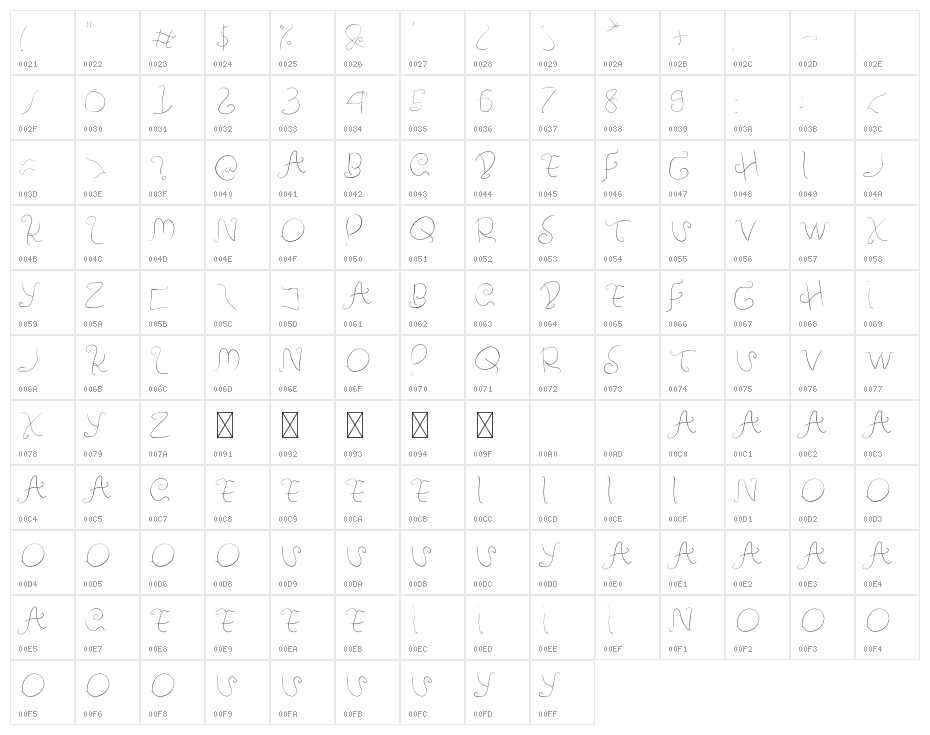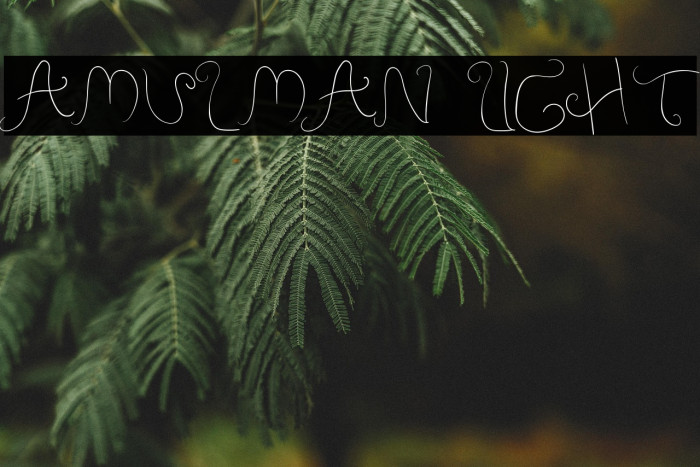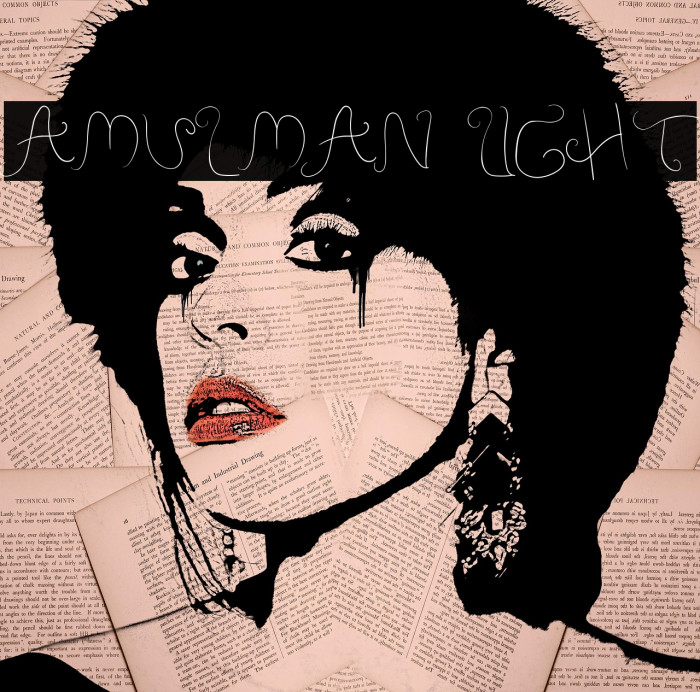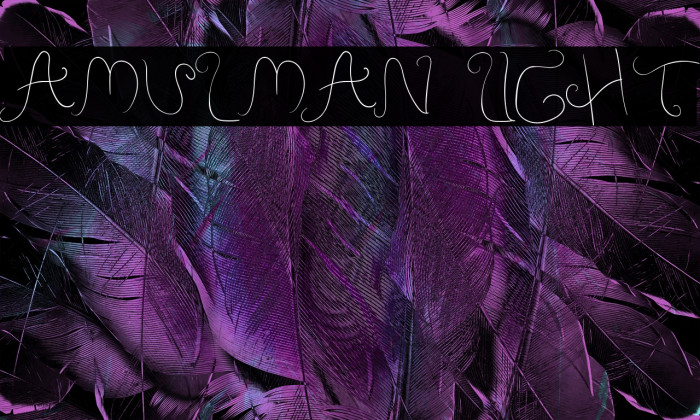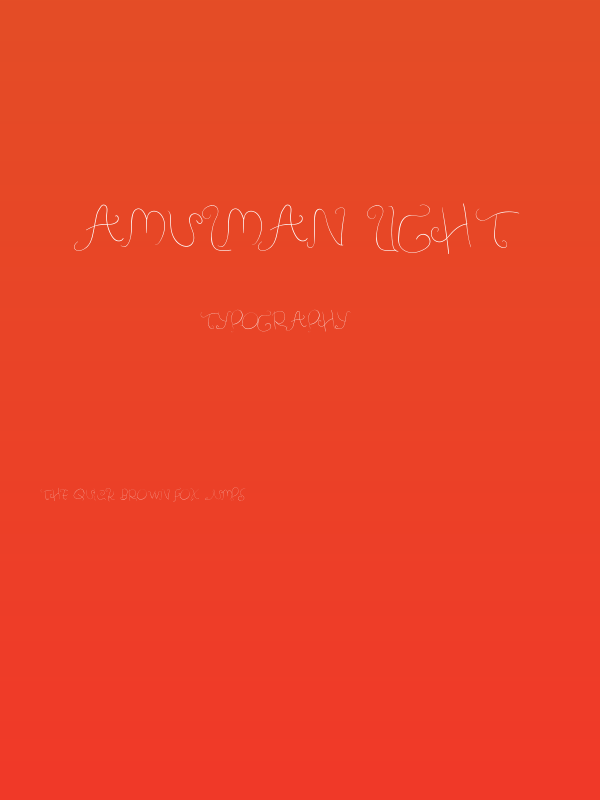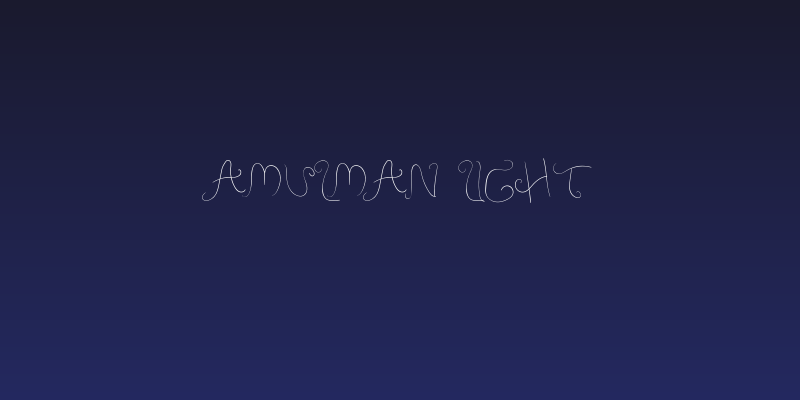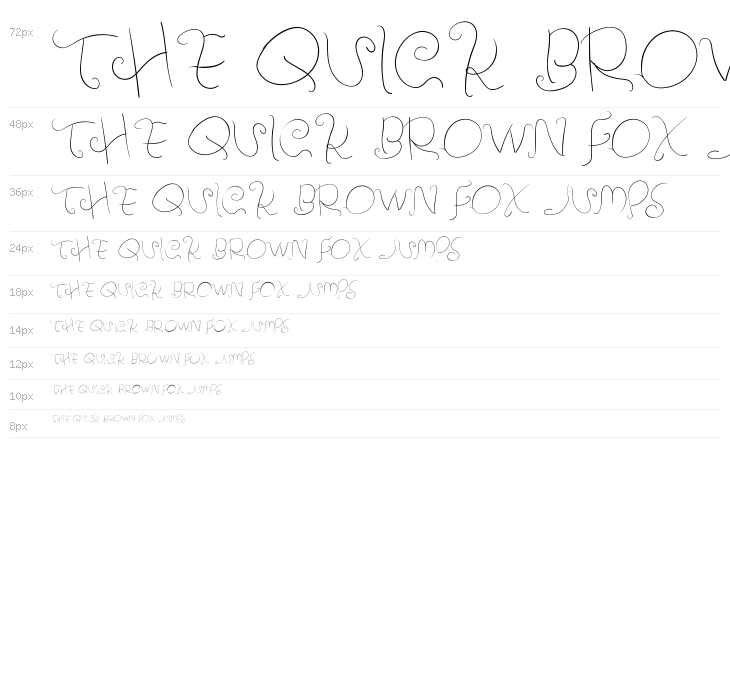
Amulman Light Font
Amulman Light Description
This font features an elegant and whimsical design with flowing, cursive-like strokes that give it a playful yet sophisticated appearance. The letters are characterized by their thin, delicate lines and intricate swirls, creating a sense of movement and fluidity. The uppercase and lowercase letters maintain a consistent style, with each character uniquely crafted to enhance the font's decorative nature. The numerals and special characters are equally stylized, ensuring a cohesive look across all elements. This font's light weight and airy feel make it ideal for projects that require a touch of elegance and creativity.
| Proposed Projects | Ideal for wedding invitations, greeting cards, branding, and decorative headlines. |